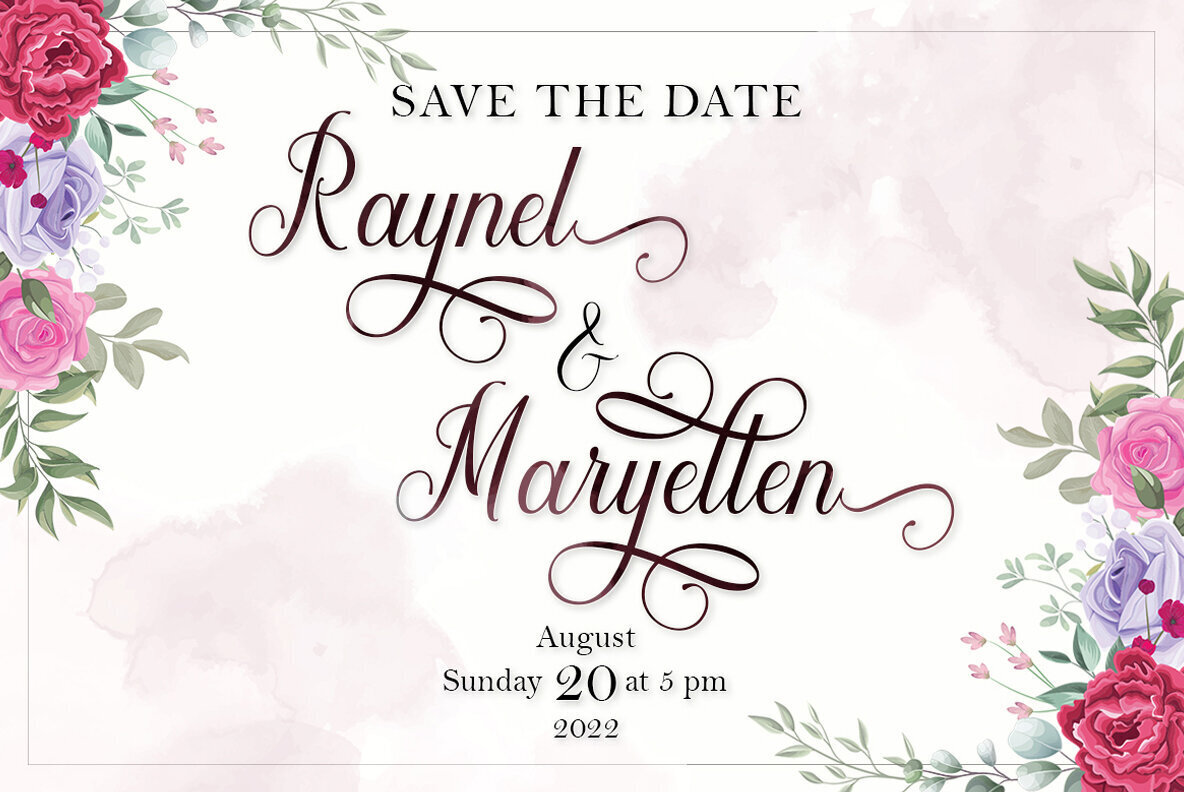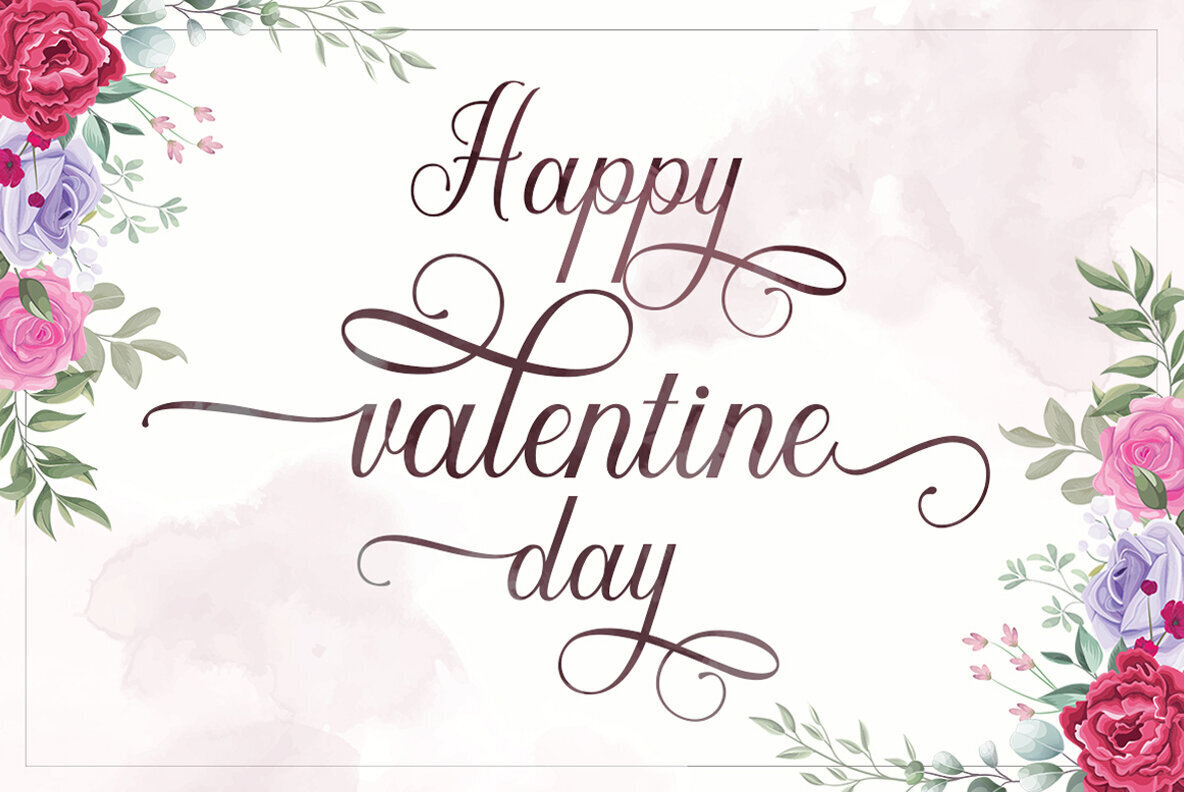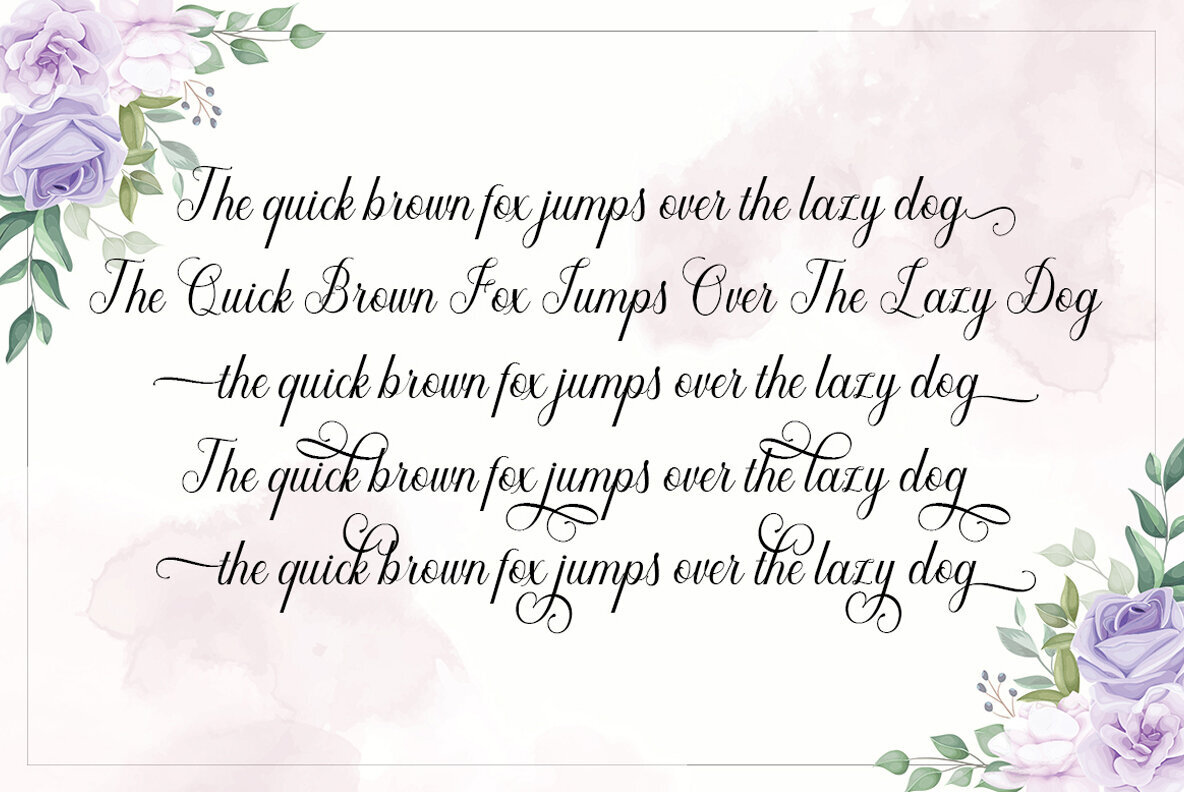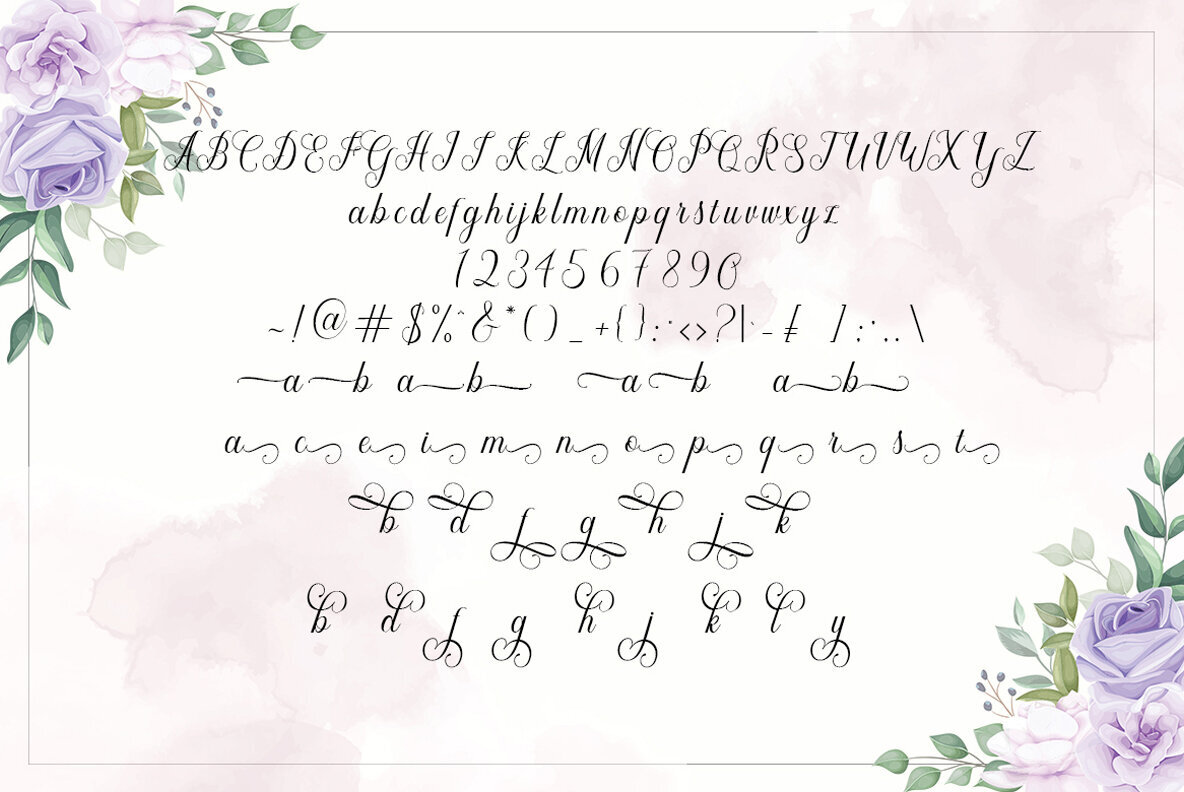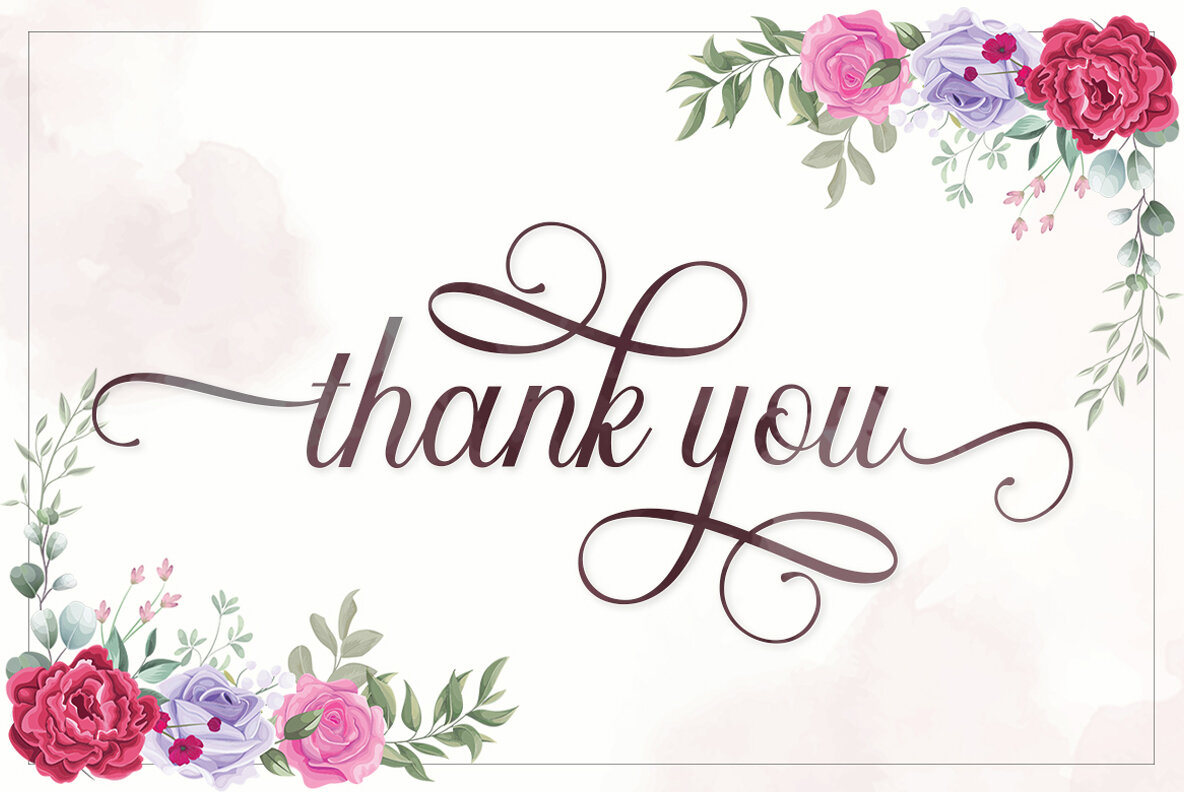
Maryellen Font
Maryellen
Maryellen, designed by Amar Lettering, is a captivating script font that offers a vast collection of over 300 glyphs, enhancing the versatility and creativity of your design projects.Maryellen: A Script Font with Dynamic Glyph Options
Embrace the creative possibilities with Maryellen, ideal for adding an expressive and intricate touch to your graphic design projects.